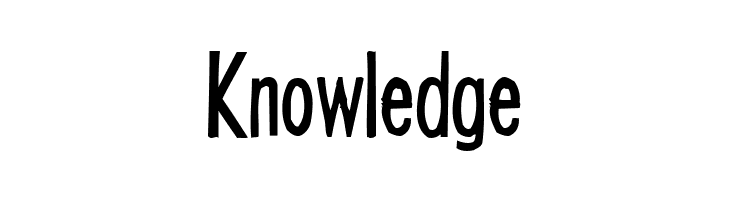
Nomitais Font
( Fonts by HPLHS Prop Fonts - Andrew H. Leman http://www.cthulhulives.org/toybox/propdocs/propfonts.html )
A bold, hand-drawn style font with irregular strokes and a creative flair.